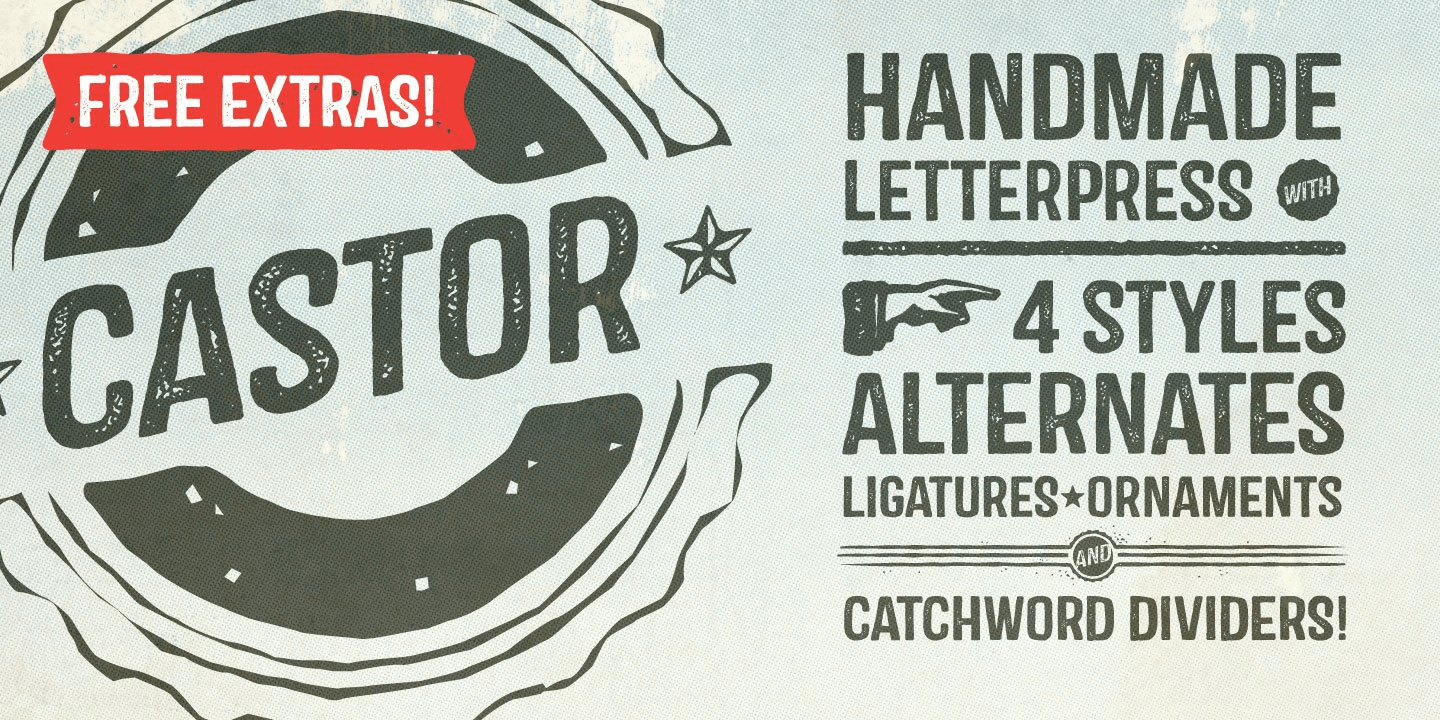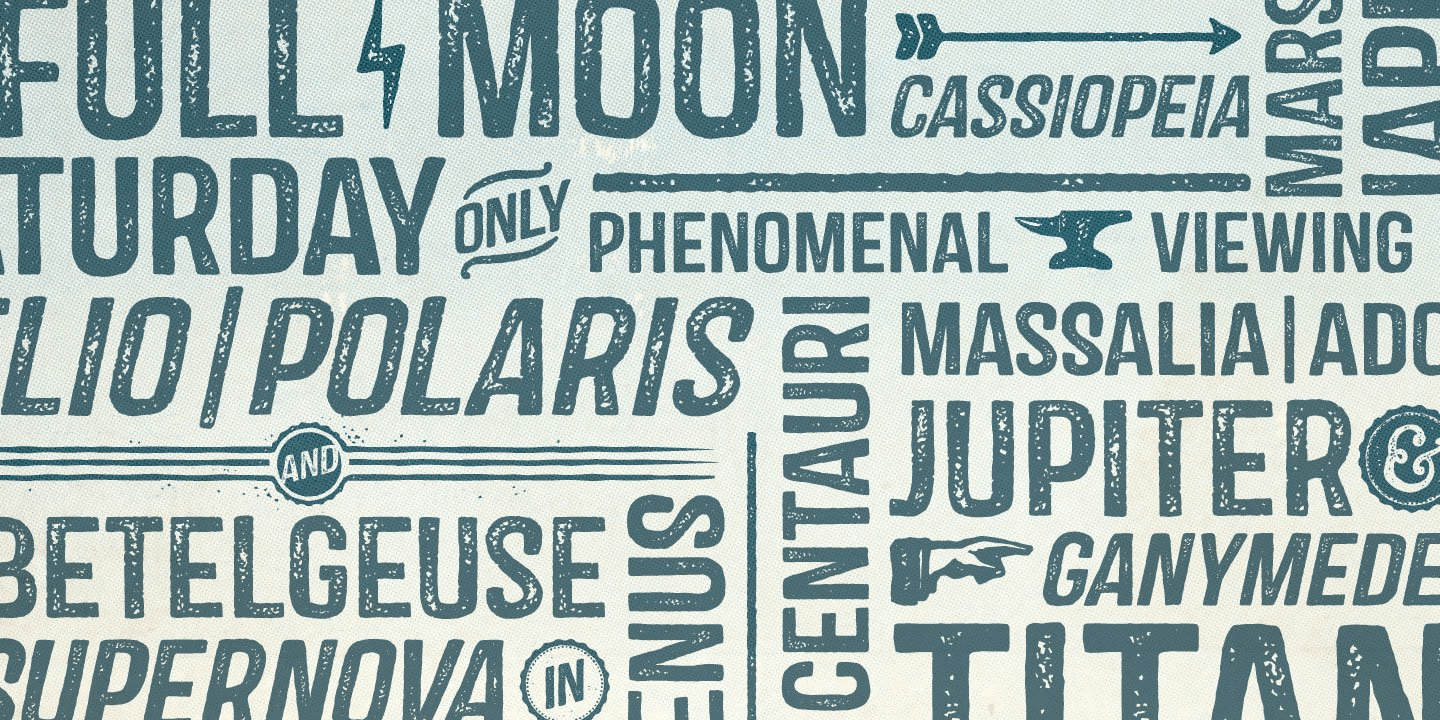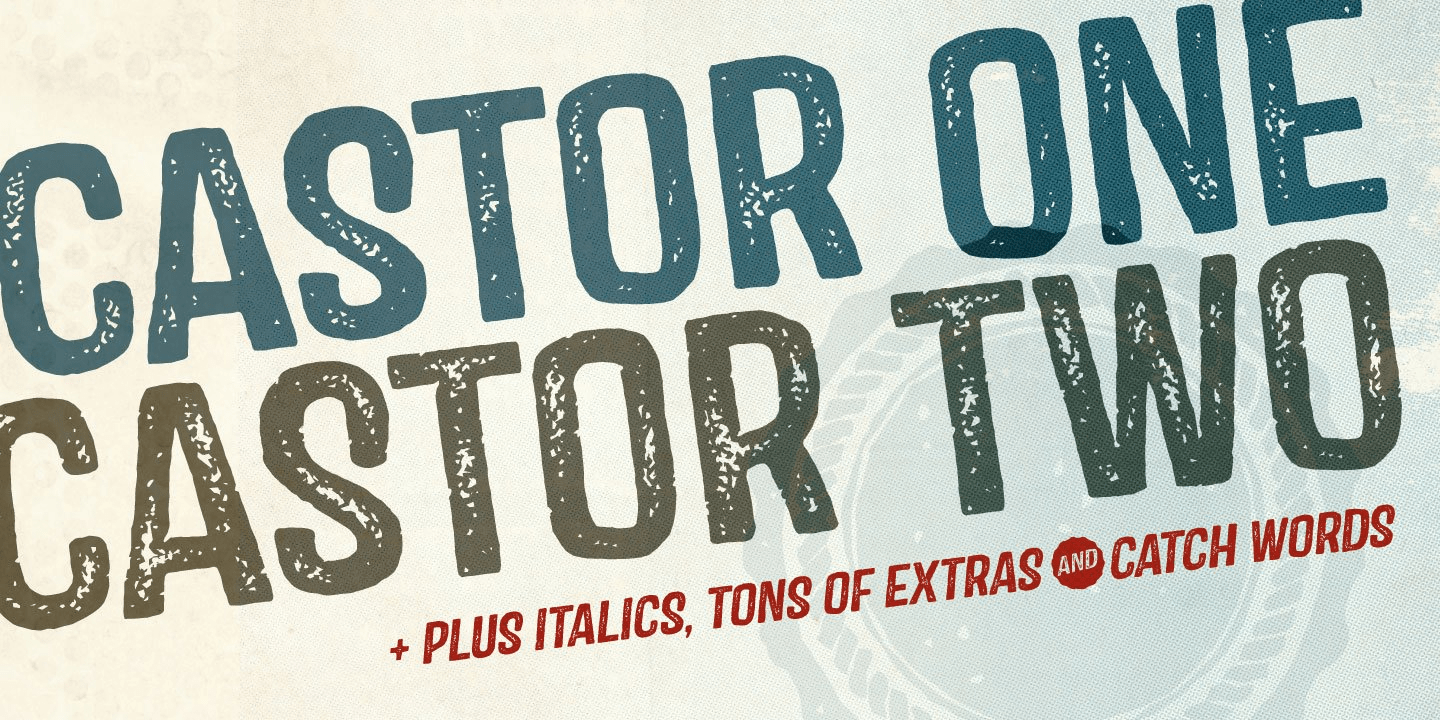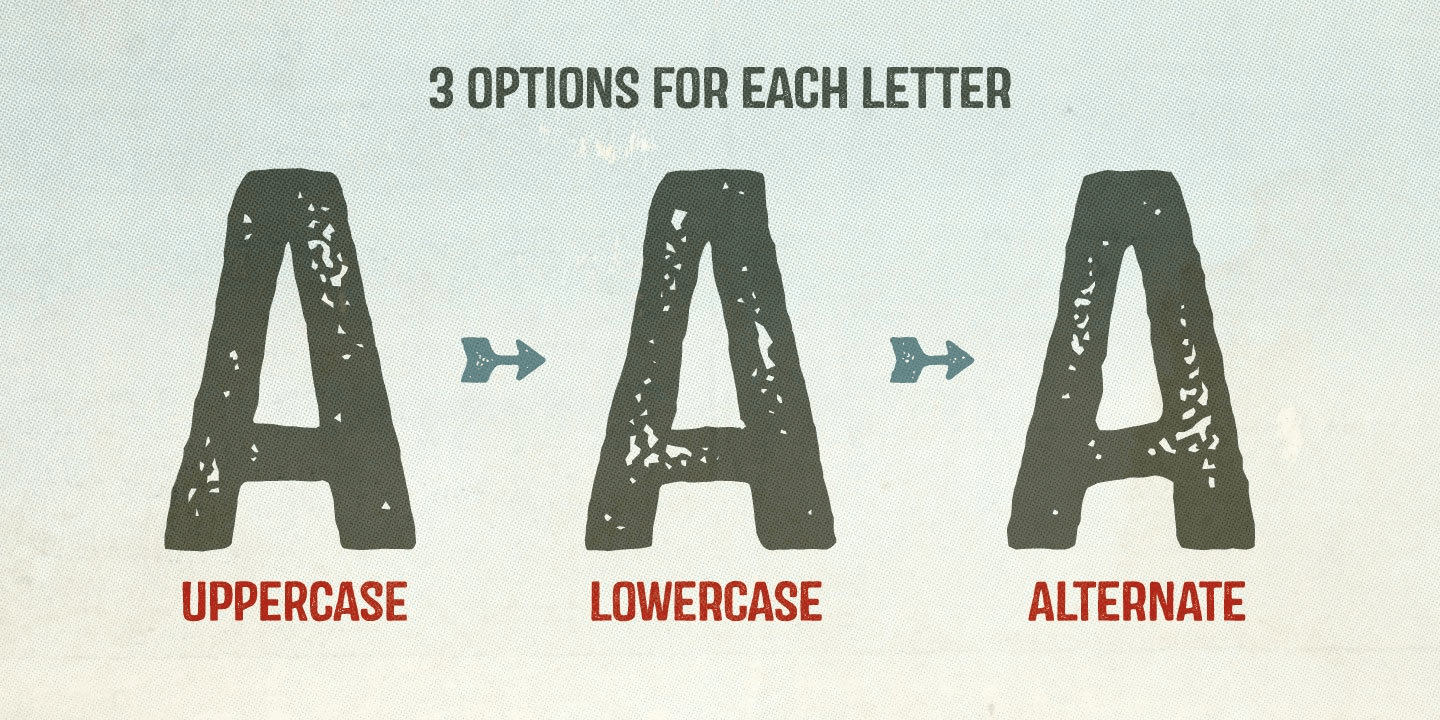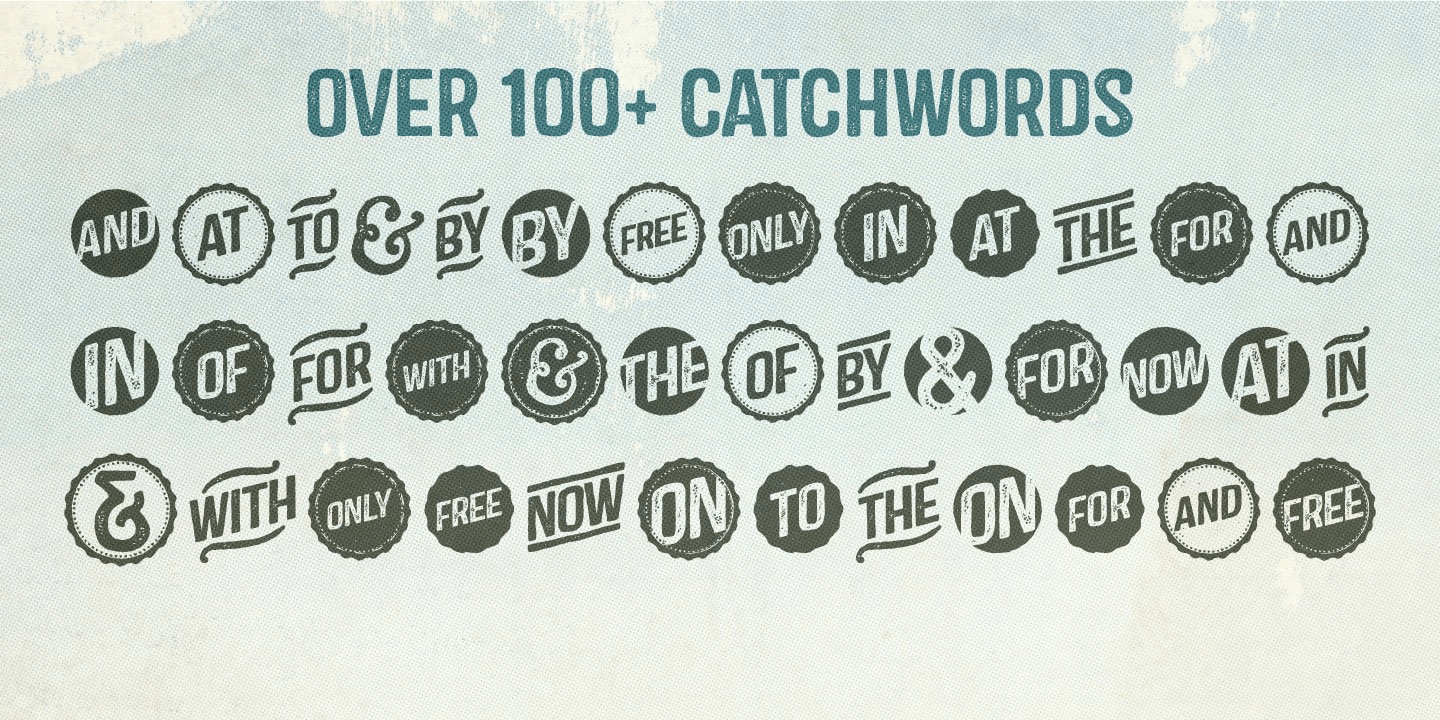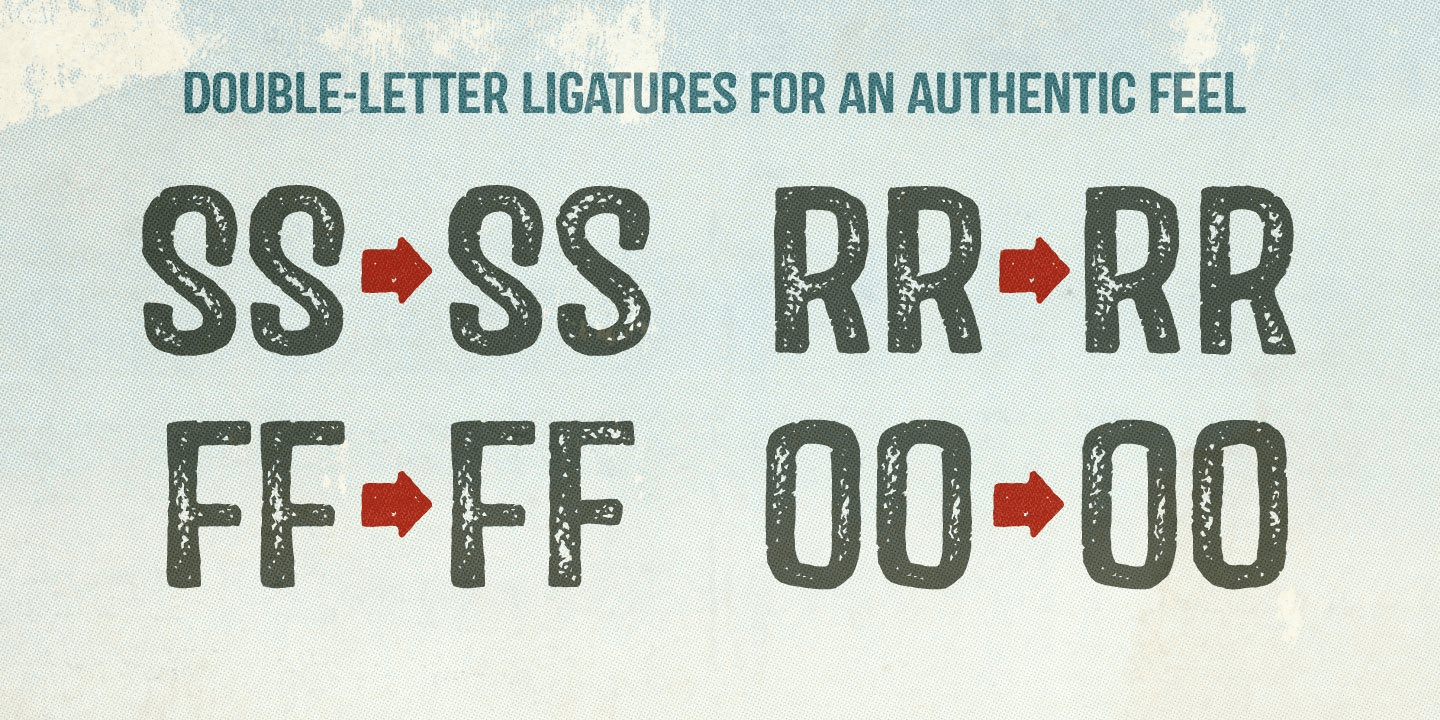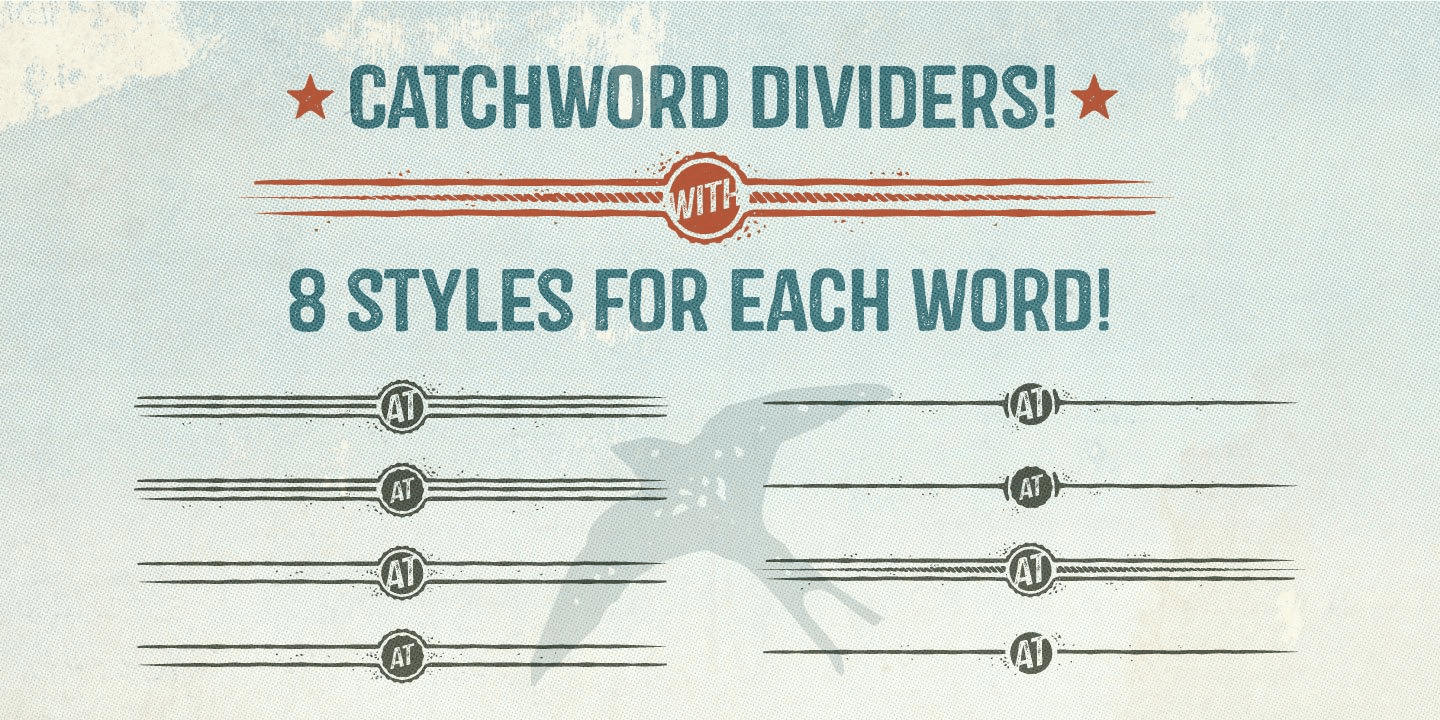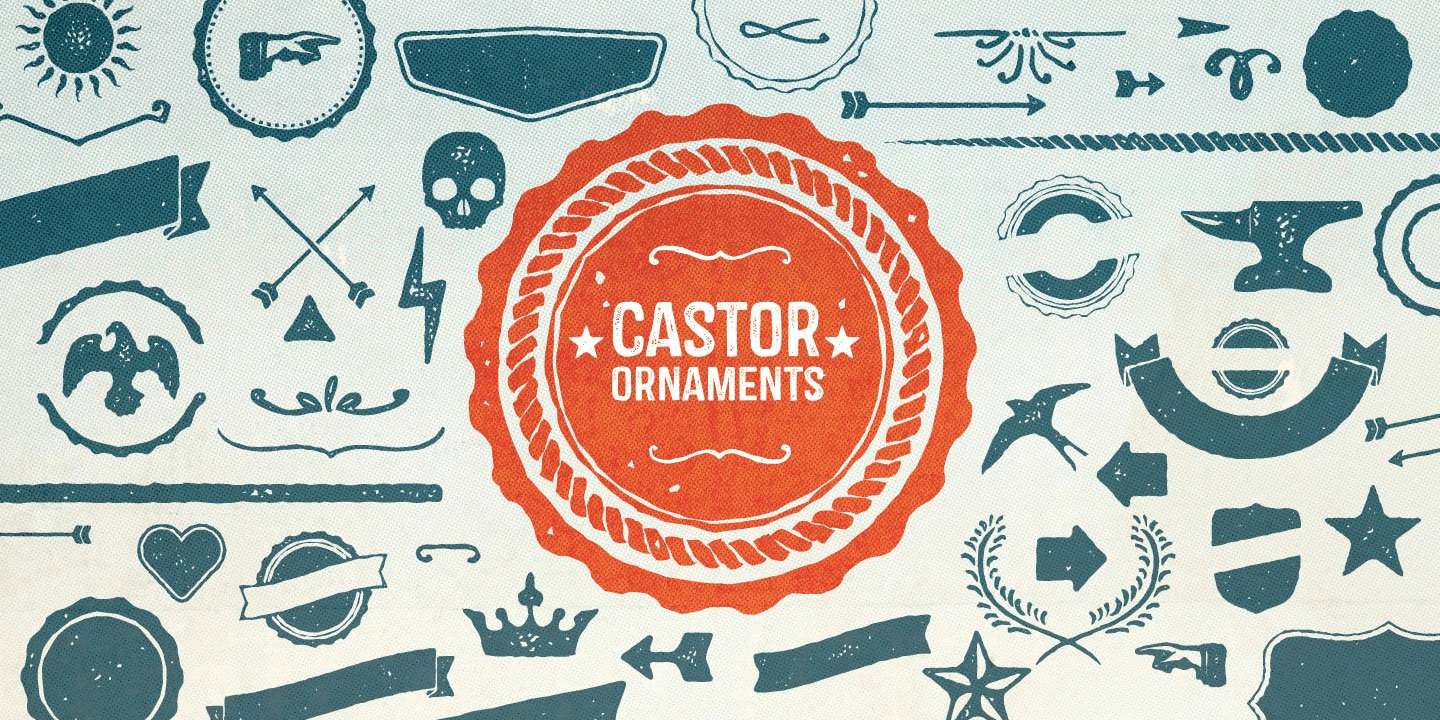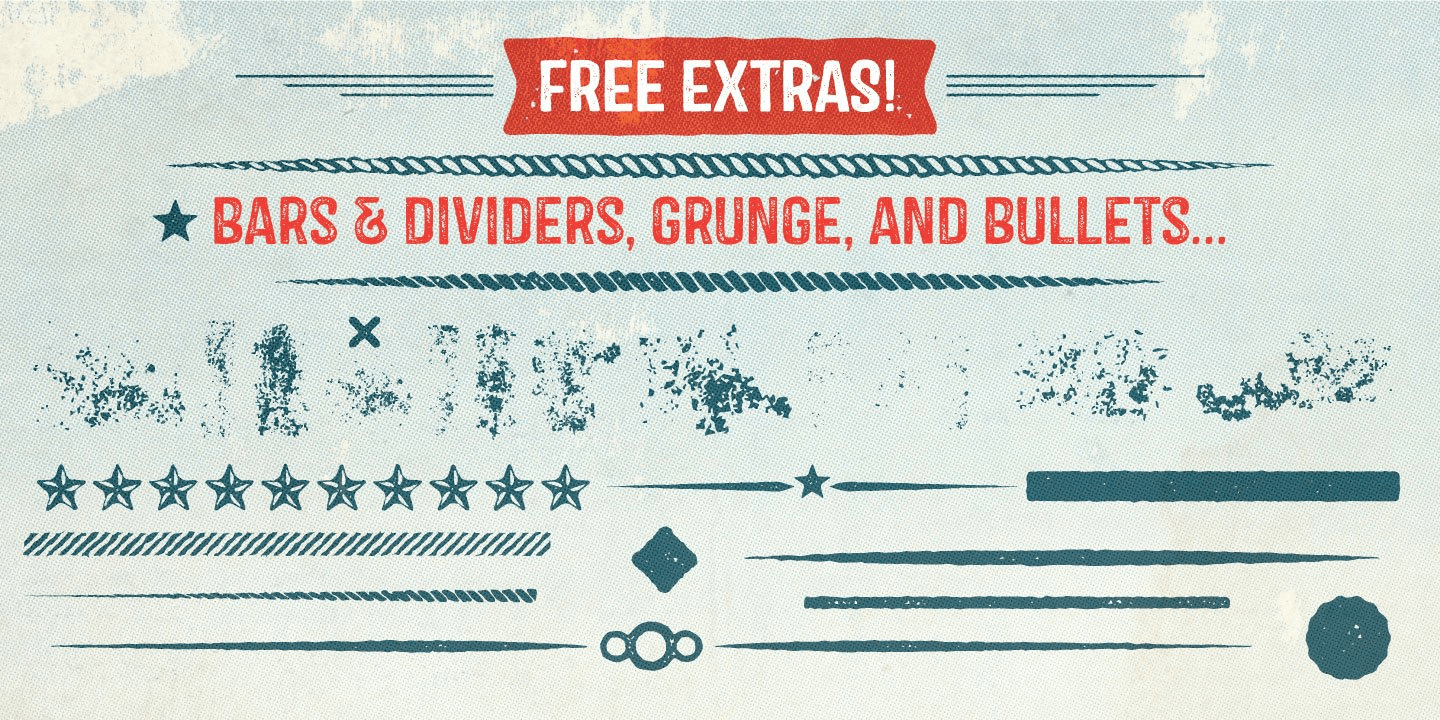
Castor
Font Family by Albatross
Castor is a woodtype and letterpress hybrid based on grotesque letterforms. It's a vintage decorative bold distressed display with 3 options for each letter; Uppercase, lowercase, and alternates. Castor comes come complete with 4 styles plus catchwords, unique ?catchword dividers? (horizontal rules), ornaments, as well as a free set of extras! (grunge, dividers and bullets) The catchwords, ornaments, and dividers are designed to compliment the font family giving it a ton of diversity, and the designer unlimited creative options. Opentype features include alternate letters and numbers, double letter ligatures for realism, subscript numbers,and superscript numbers.